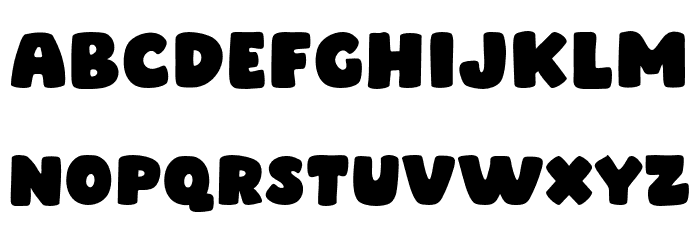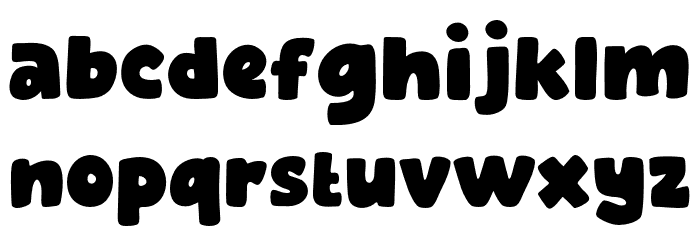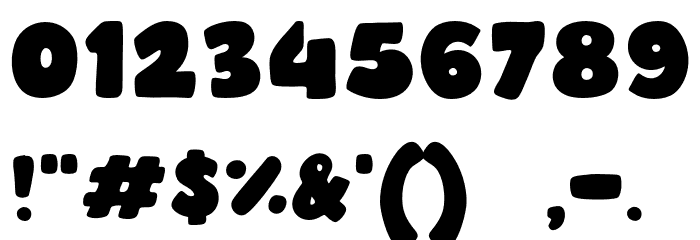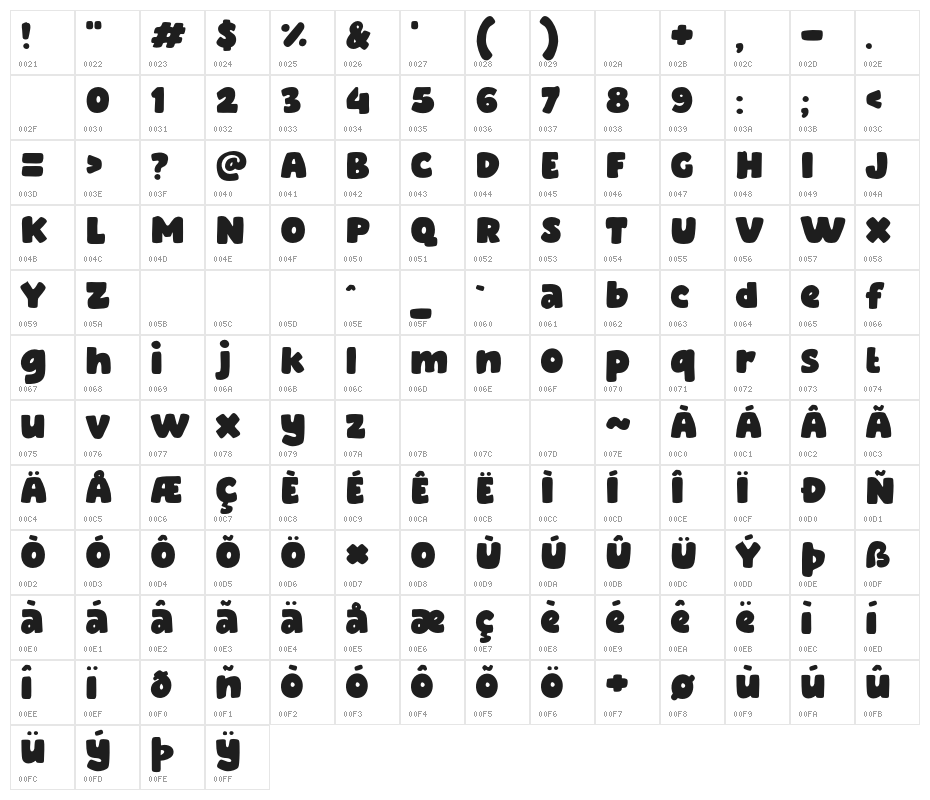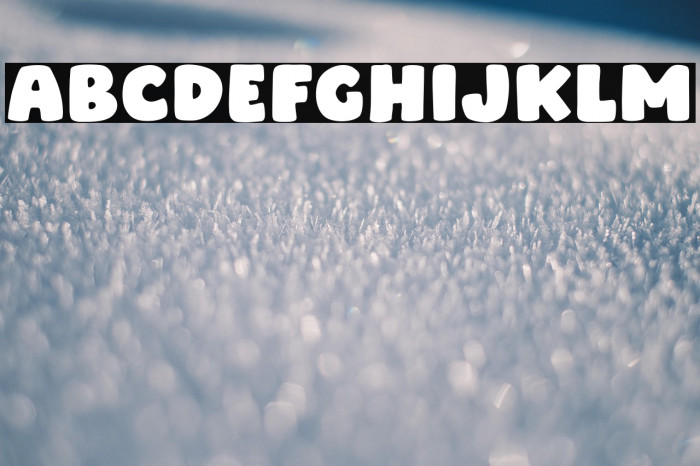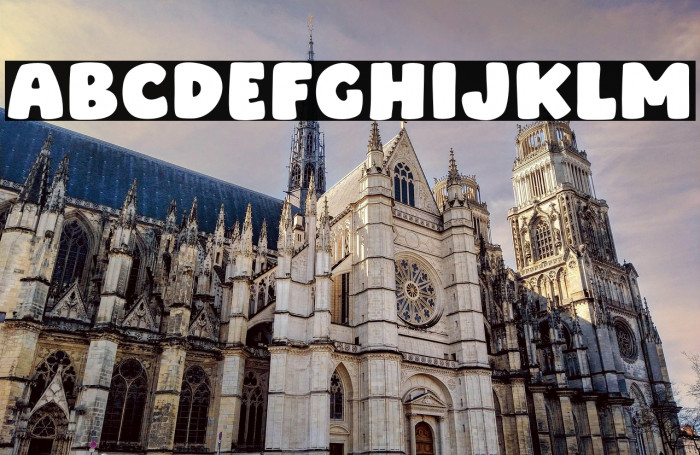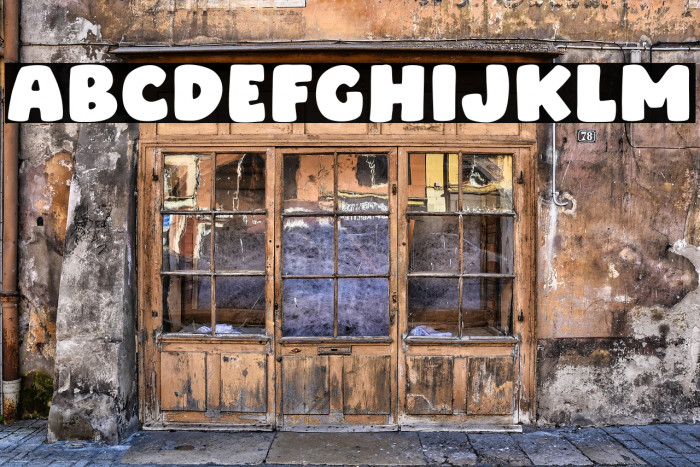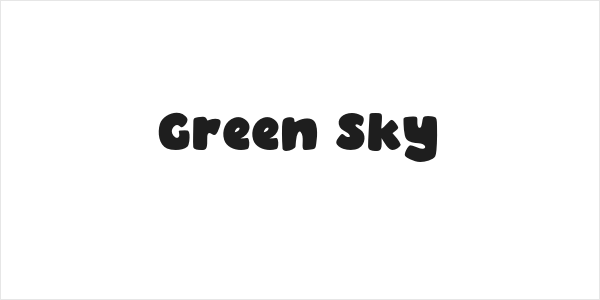
Green Sky Font
This font features a bold, playful style with rounded edges and a chunky appearance. The characters are uniformly thick, giving it a strong presence. The uppercase and lowercase letters maintain a consistent weight, contributing to a cohesive look. The numbers and special characters follow the same design principles, ensuring uniformity across all glyphs. Its boldness and rounded forms make it stand out, perfect for designs that require a fun and approachable aesthetic.
A bold, playful font with rounded edges and a chunky appearance.
- Font: Green Sky
- Proposed Projects: Ideal for children's books, playful branding, posters, and social media graphics.
- Overall Style: Playful, Fun